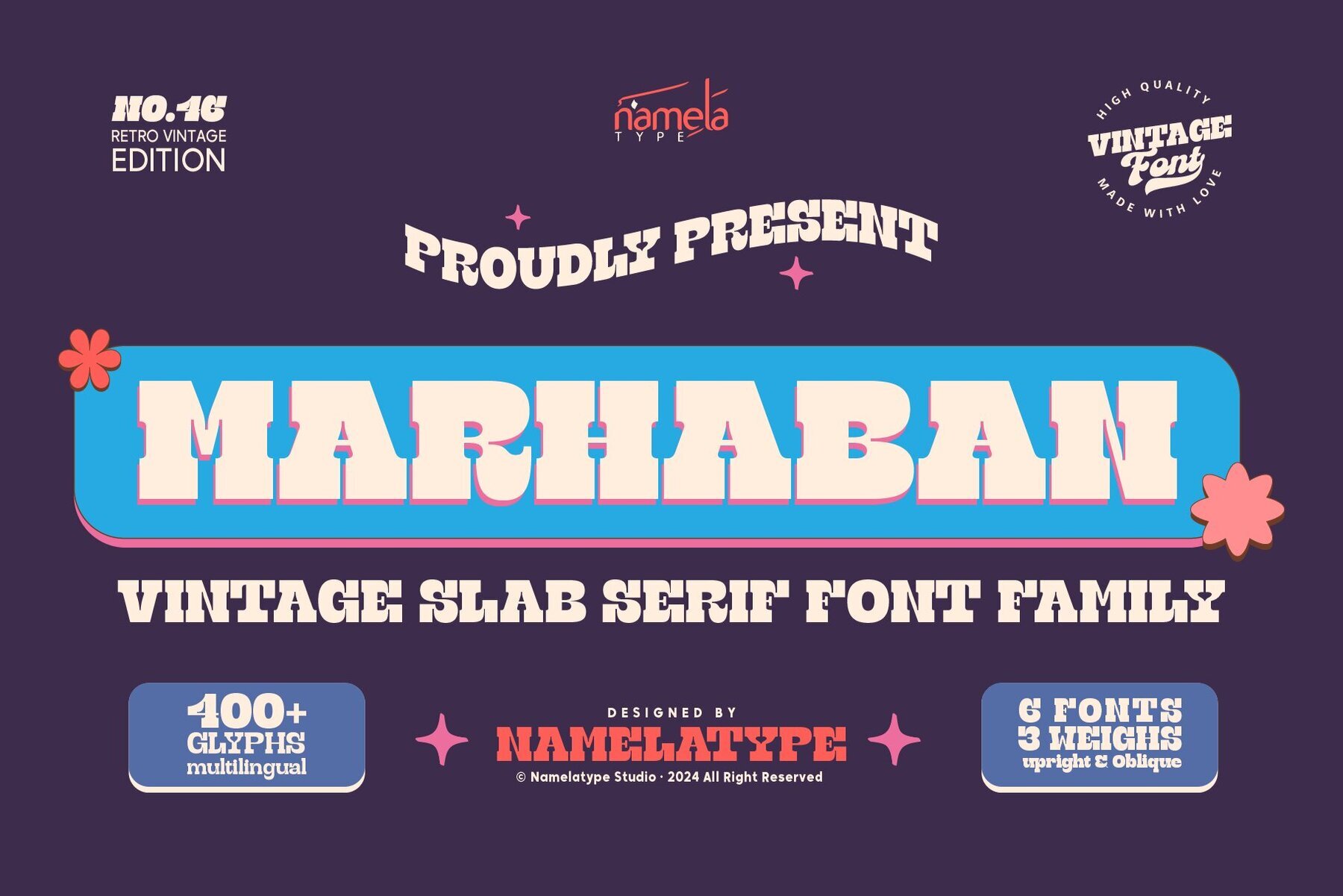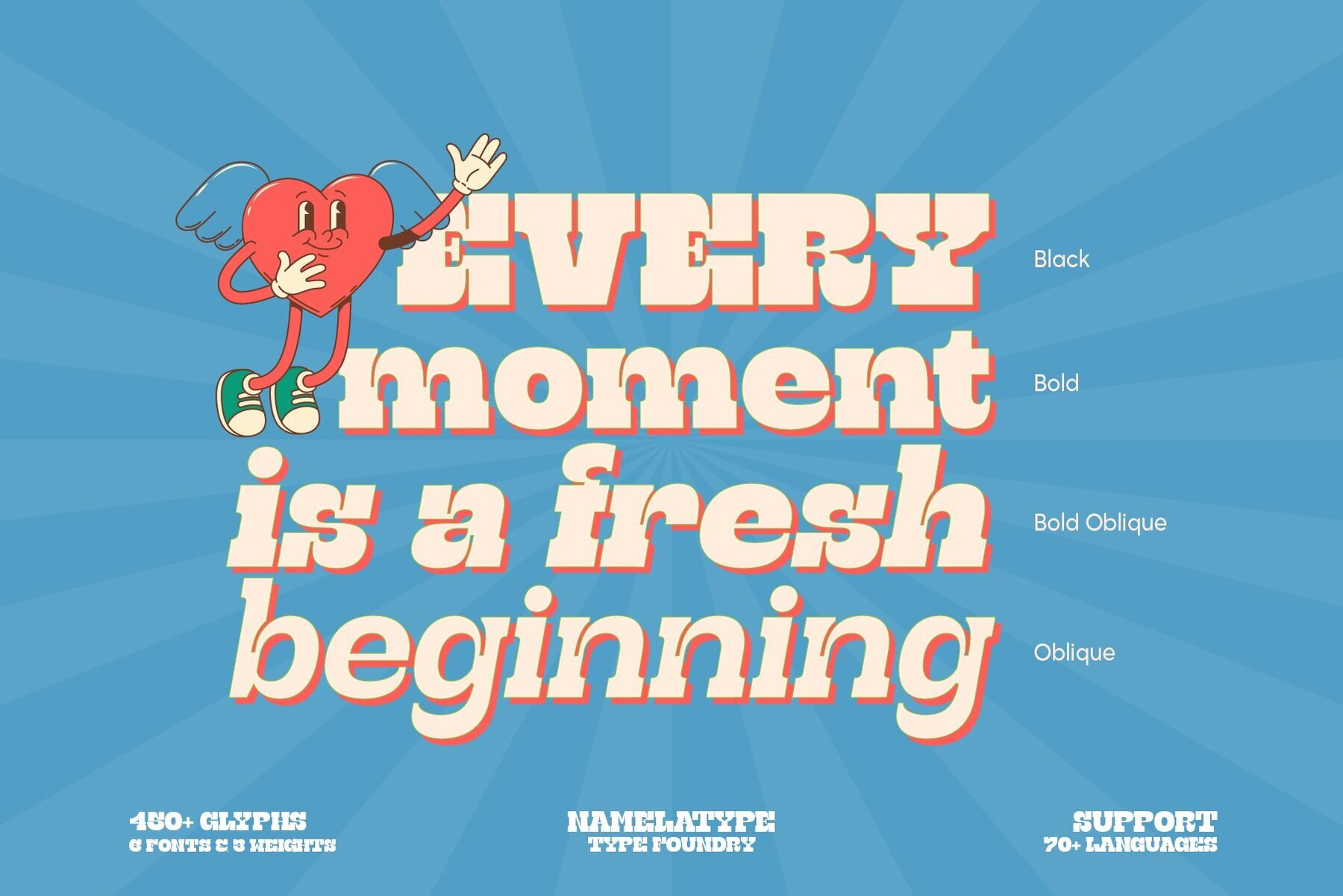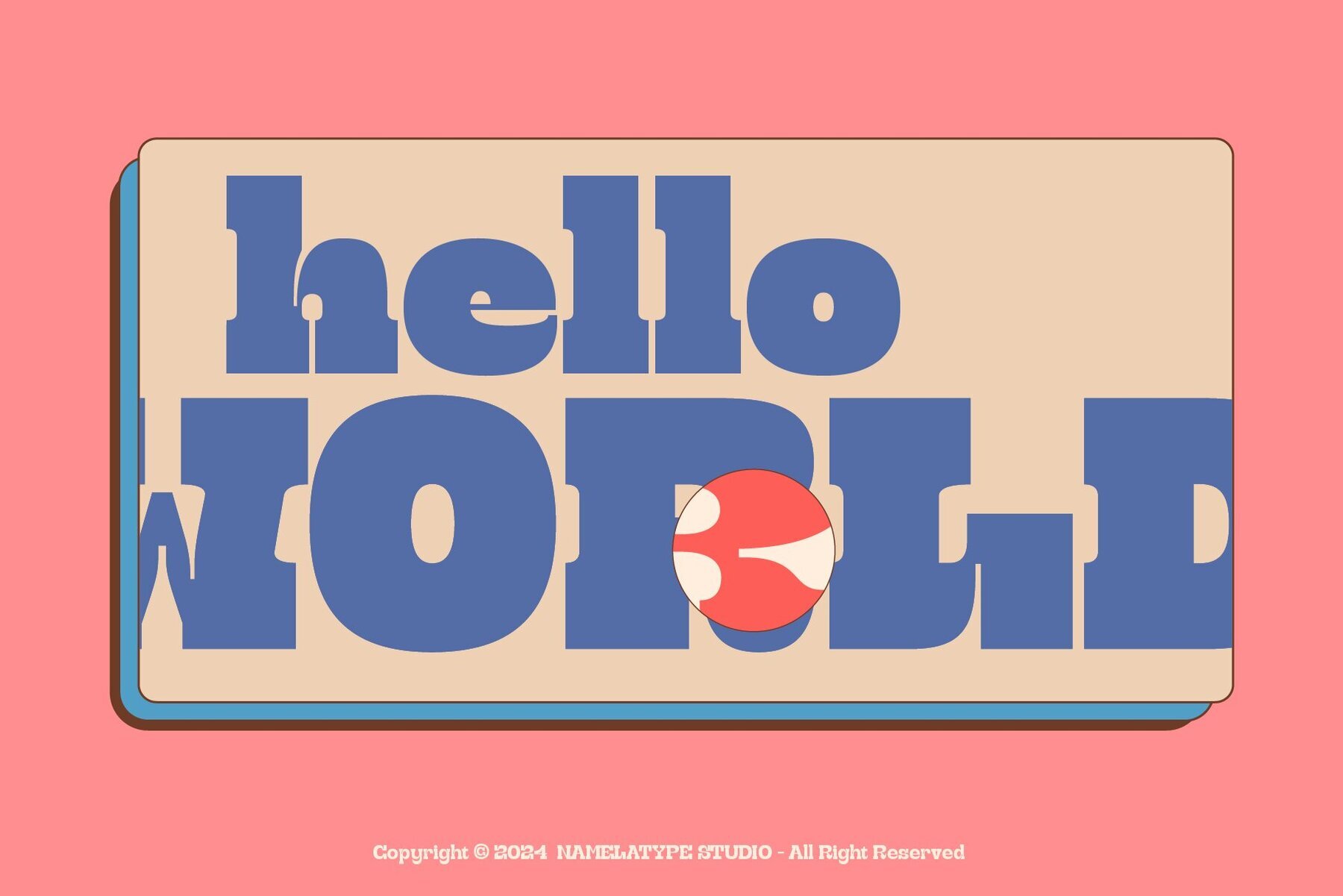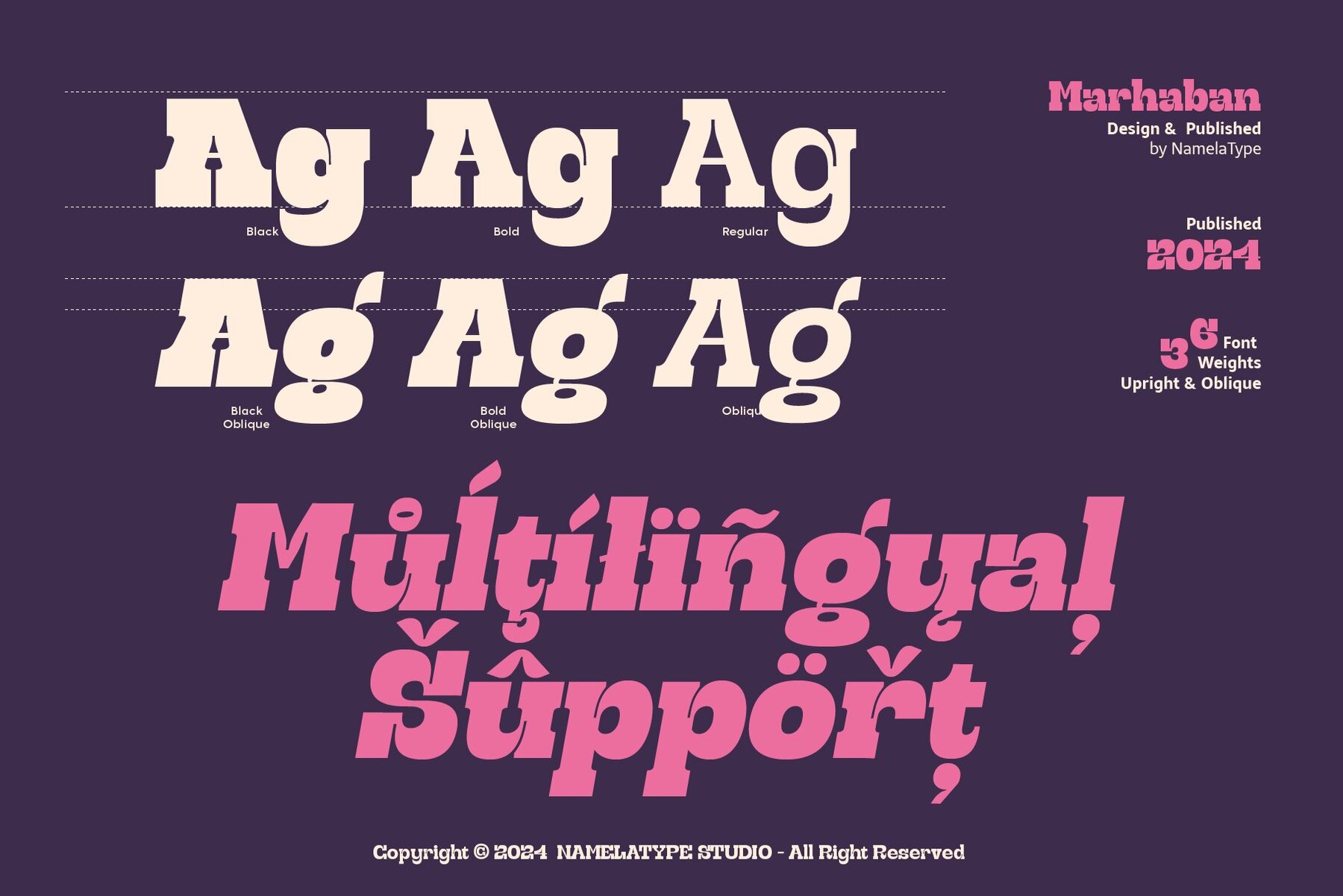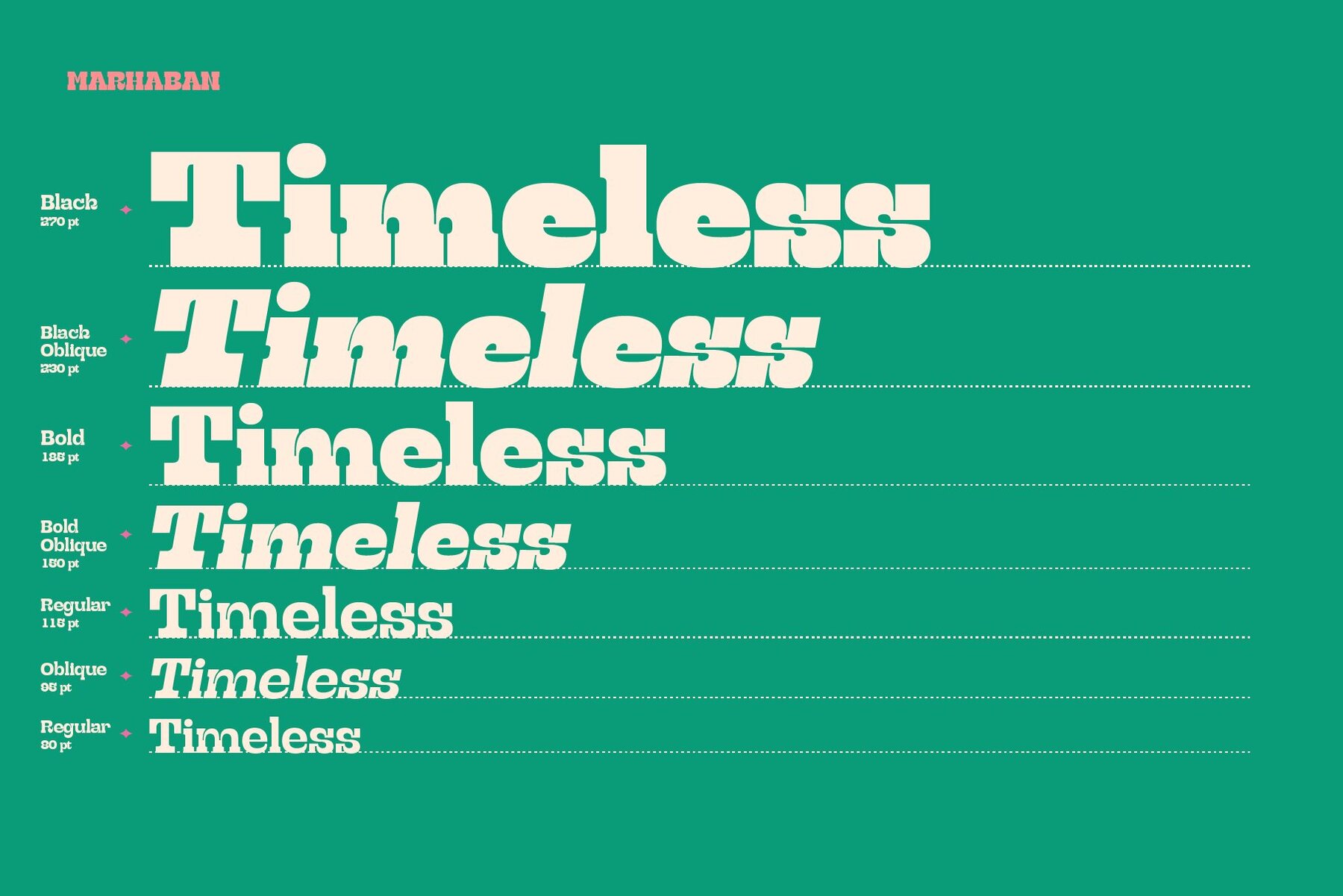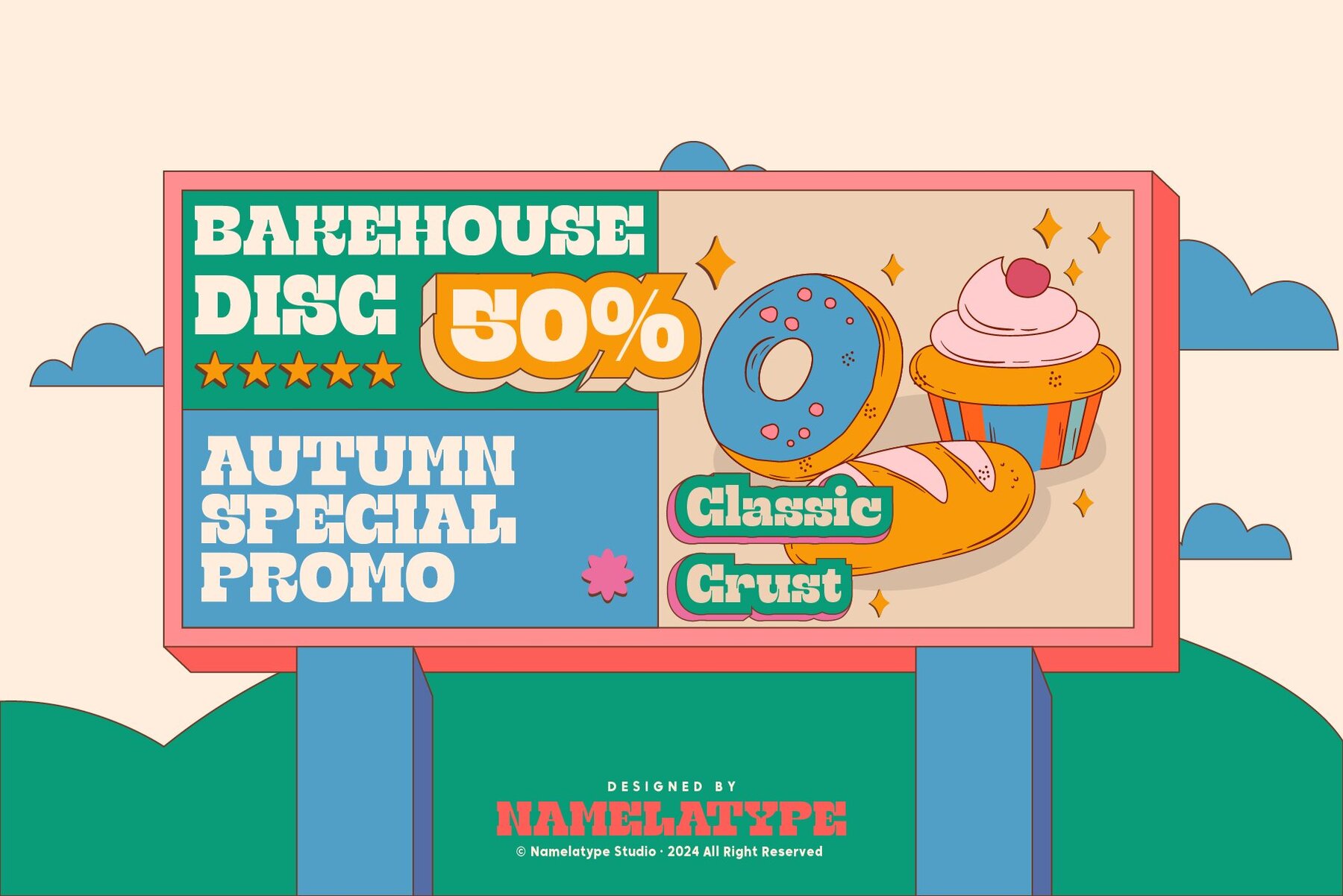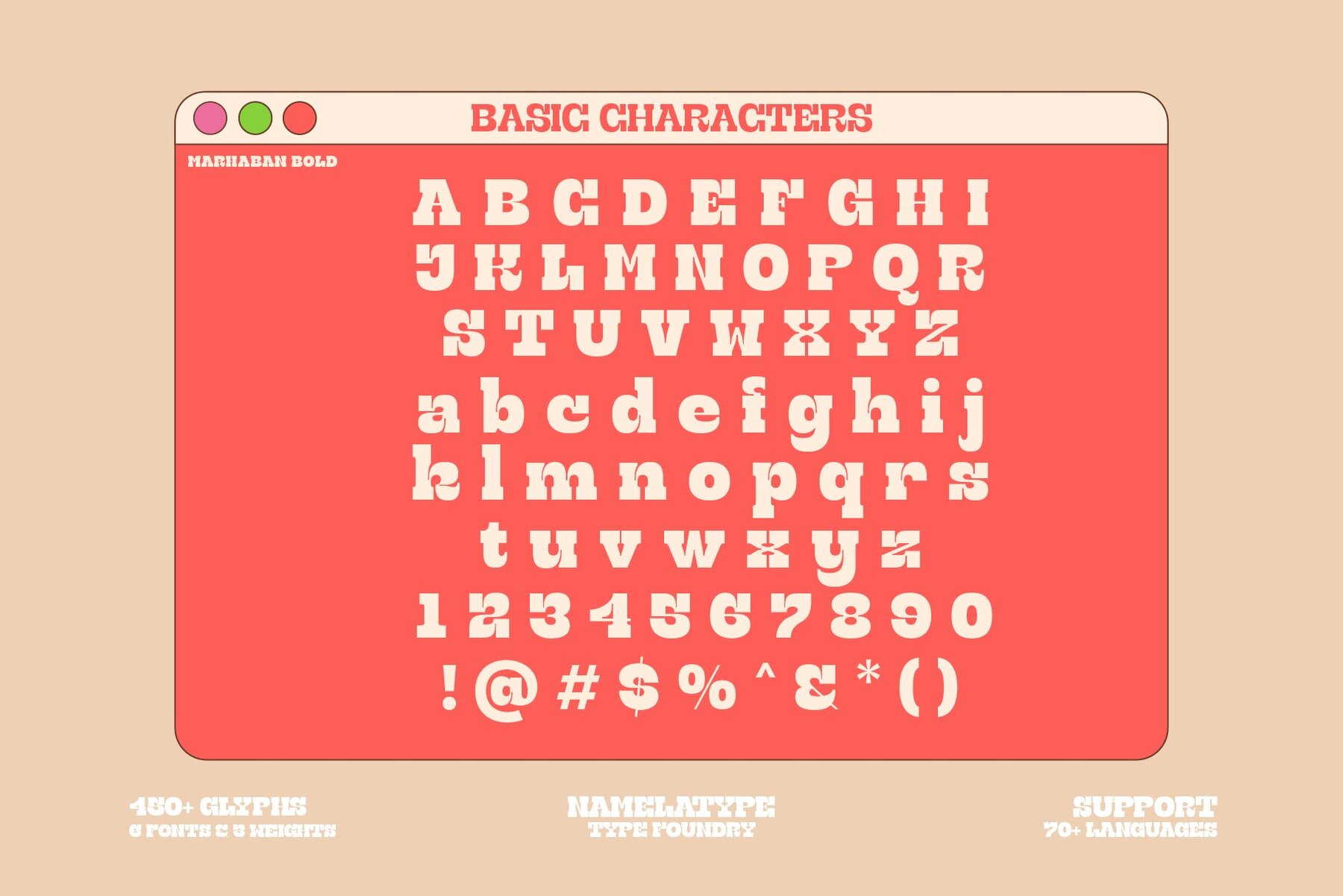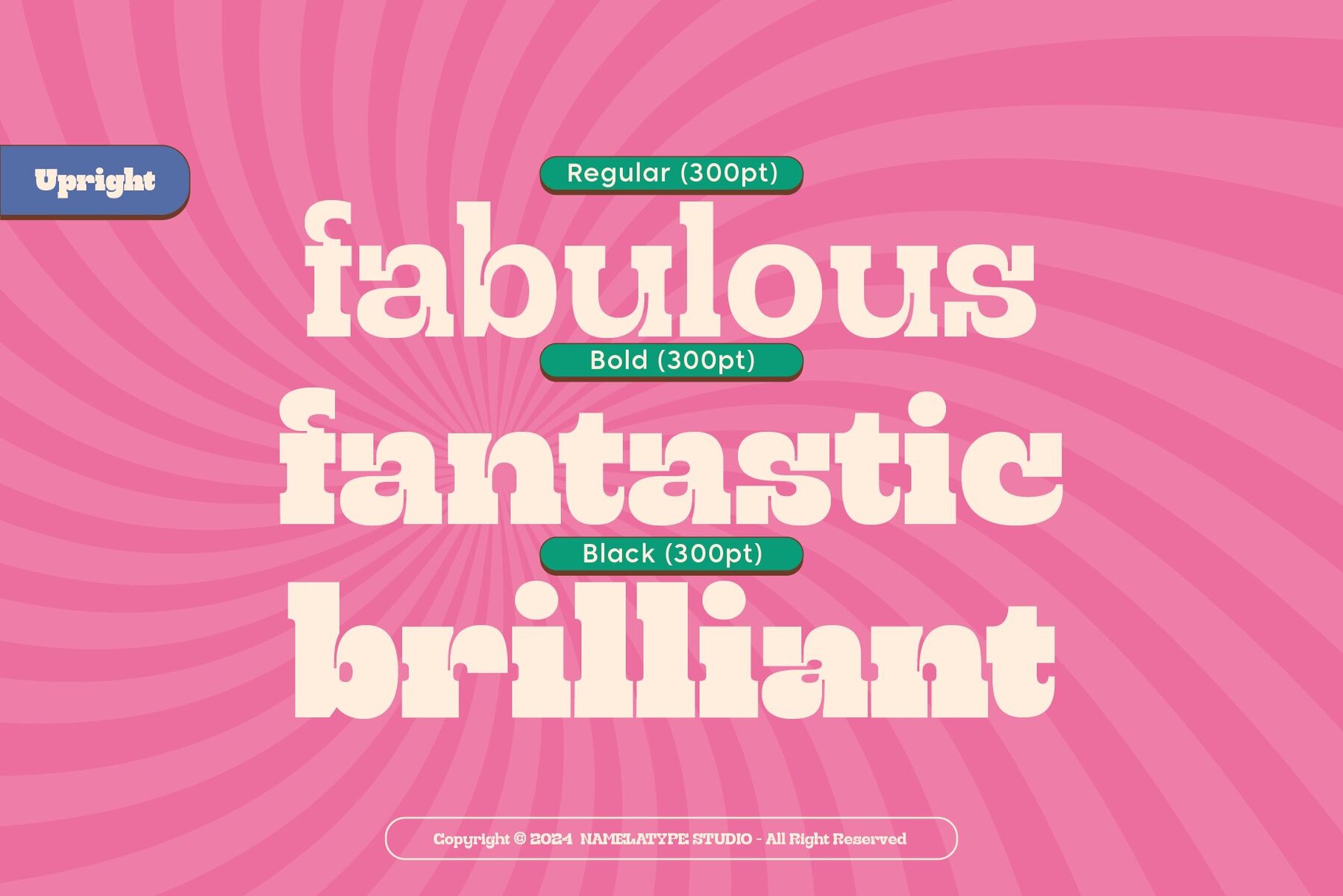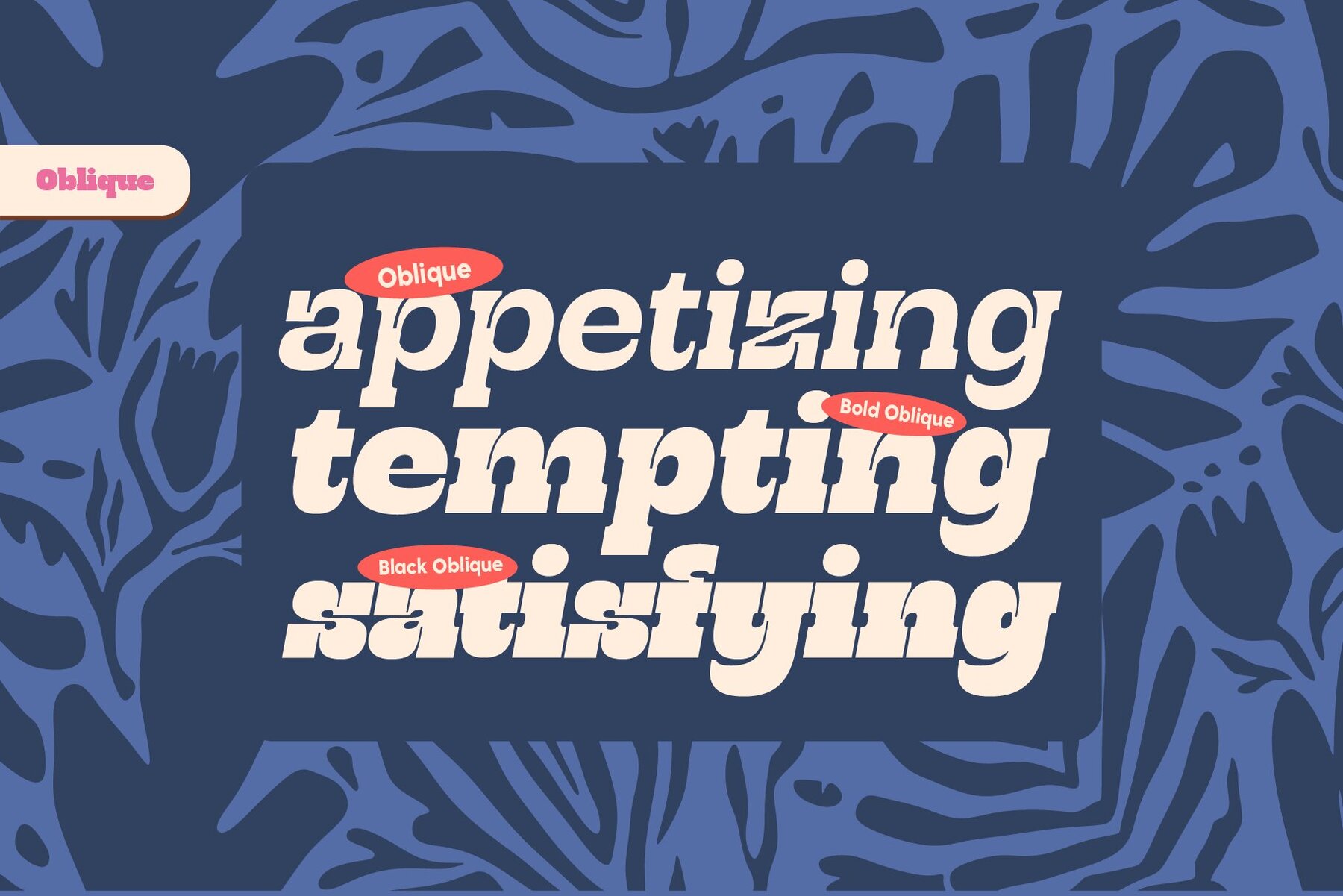
Marhaban retro vintage slab serif font Ideal for branding, packaging, and editorial designs, a vintage slab serif font family adds a bold yet classic appeal, capturing a heritage-inspired style that stands out across print and digital formats.